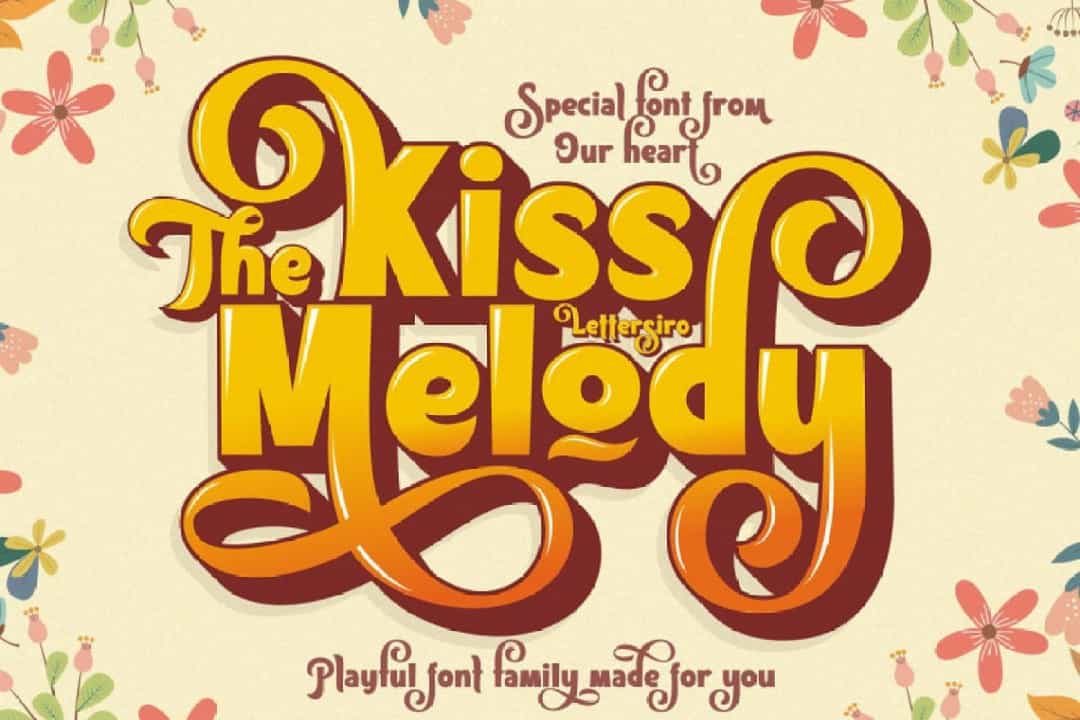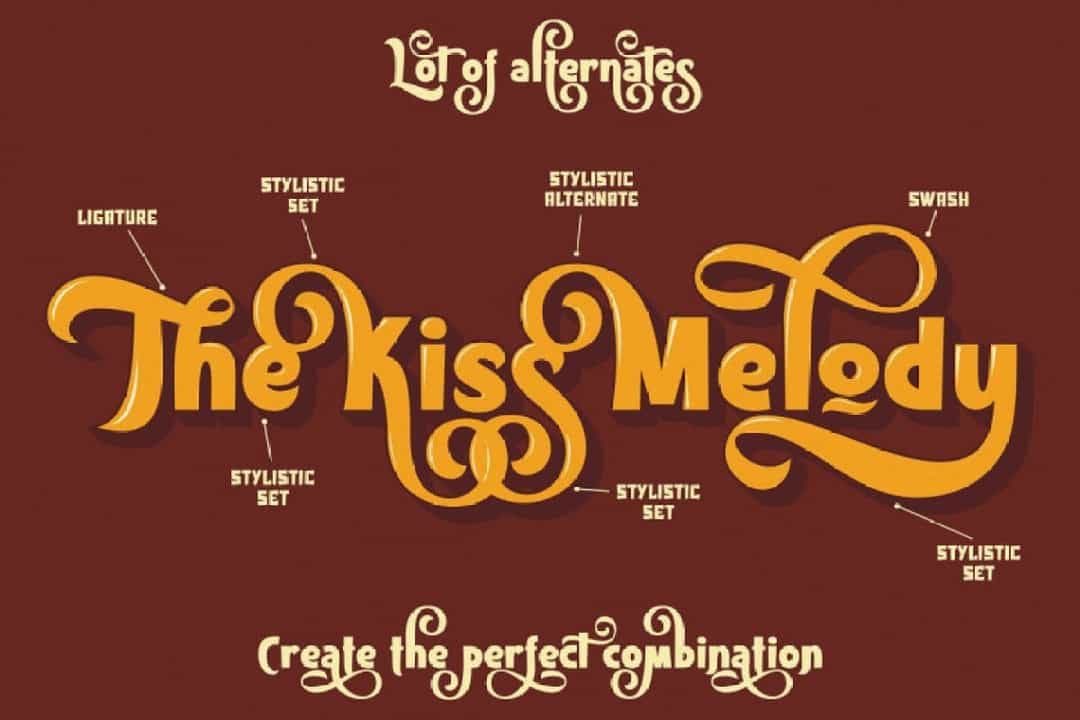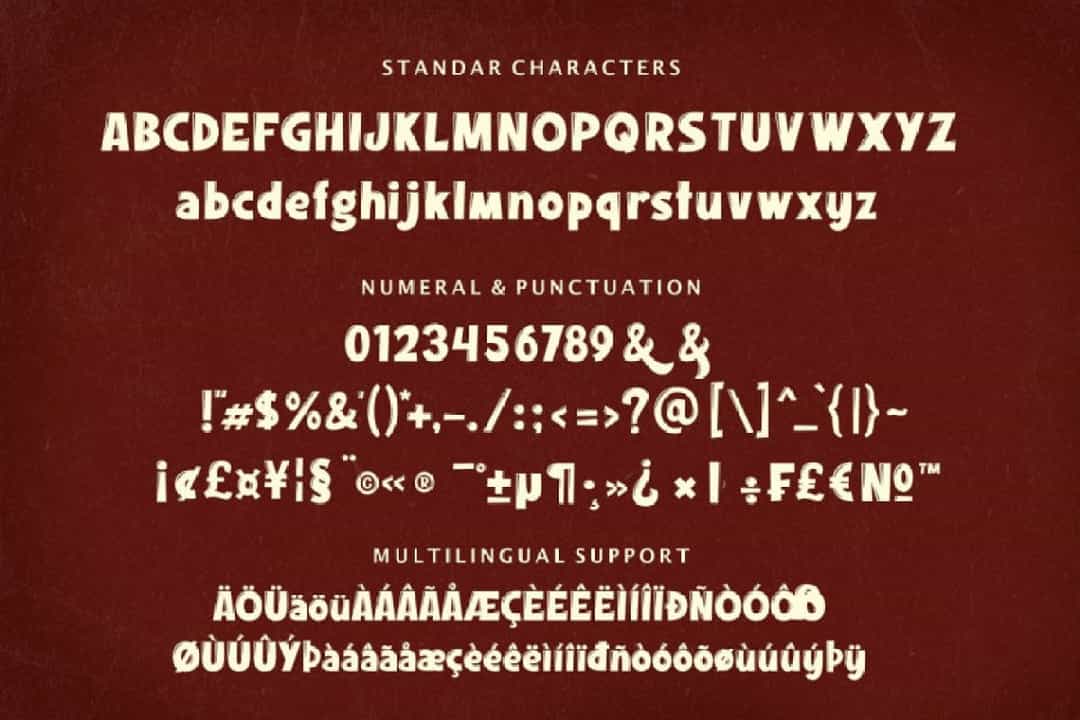
Kiss Melody Font
Discover Kiss Melody Font, part of the   Sans Serif Display  Retro Basic Personal  Misc collection—a versatile and unique font perfect for adding a personal touch to your projects. Download it for free and enjoy crafting designs with style, from invitations to social media posts. This font is available exclusively for personal use, giving you the freedom to create without limits. Unlock your creativity with Kiss Melody Font today!
Kiss Melody is a modern sans serif font family with influences from the late Renaissance, which Lettersiro designed for use as display fonts in large-sized applications, including logos, posters, fashion, custom stickers, musical releases, magazine covers, and similar. Be creative when creating perfect combinations of characters in order to create the best combinations!